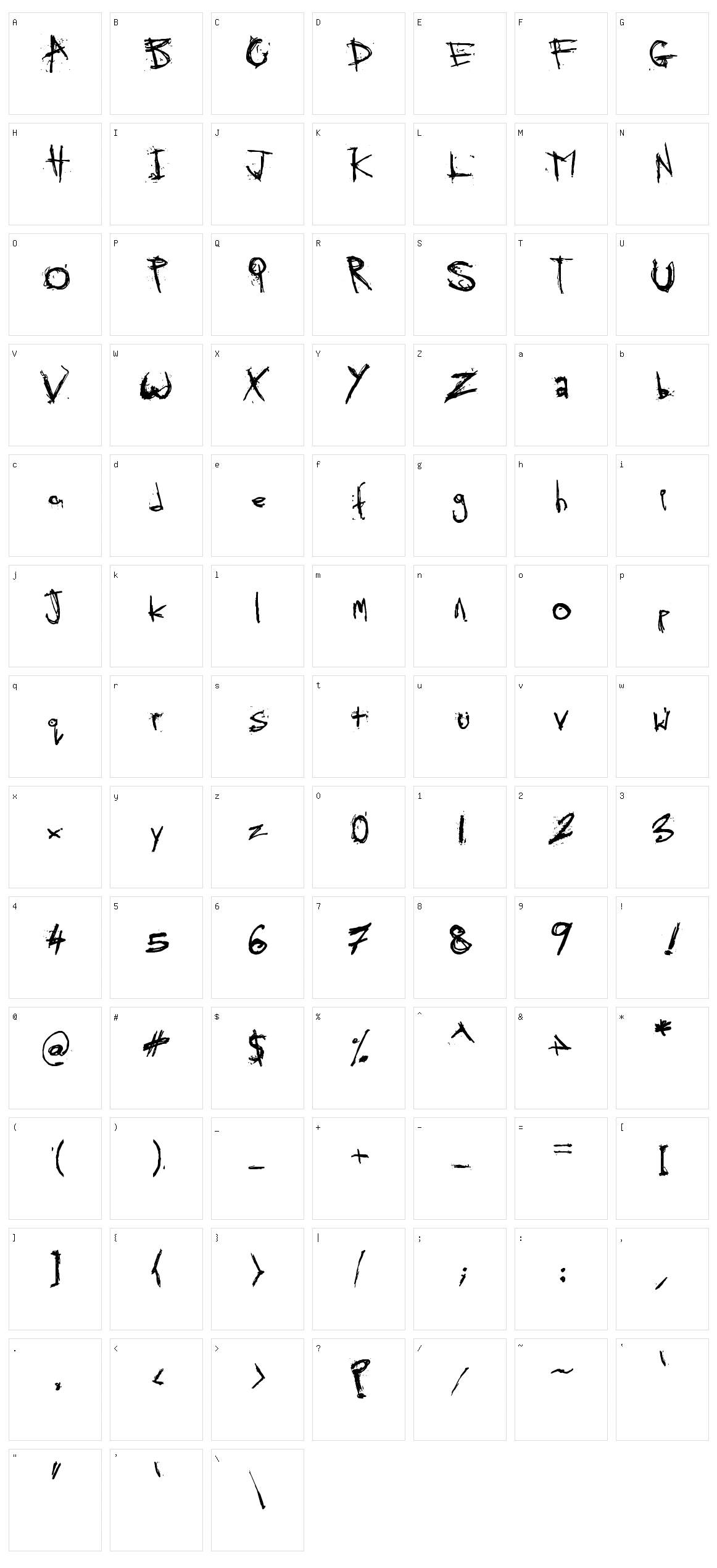
The free font Skratchy the Spook is carefully designed by Daniel Voshart, showcasing a thoughtful balance of creativity and usability and falls under the Trash font style. When you download the ZIP file, it contains only 68.11 KB of font files, making it lightweight and quick to download. Please review the license details below to understand permitted usage and distribution rights. If license information is not available, we recommend using this font for personal projects only or contacting the author directly for commercial usage permissions.